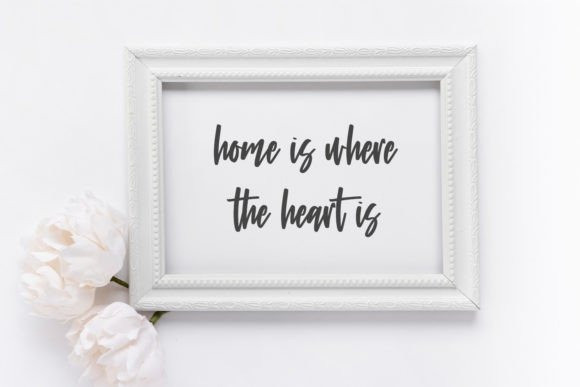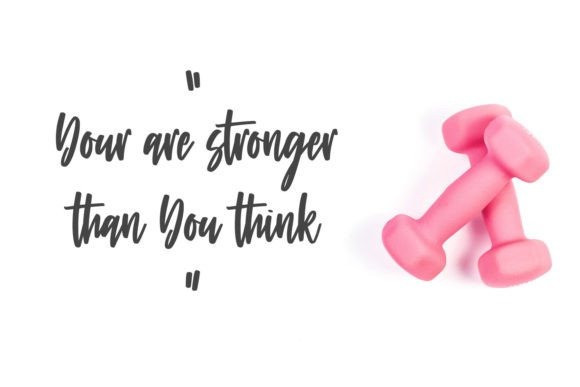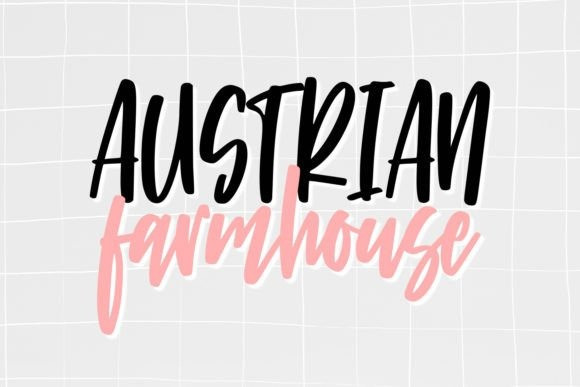
Austrian Farmhouse Script Font
Austrian Farmhouse Script Font is natural handwriting font. It is great for t-shirt designs, quotes, mugs, tote bag designs, cards, banners, social media, and any craft projects that need a simple but elegant style.